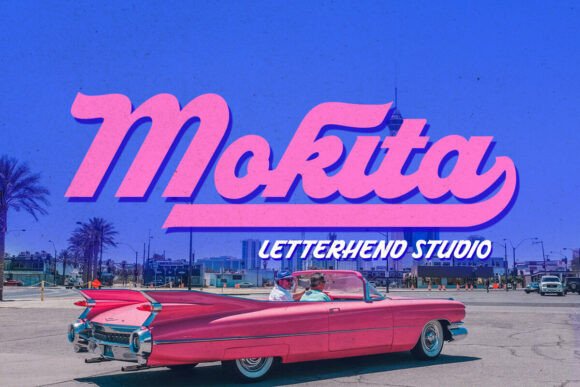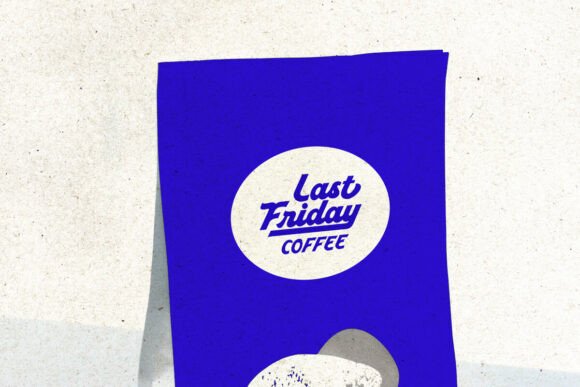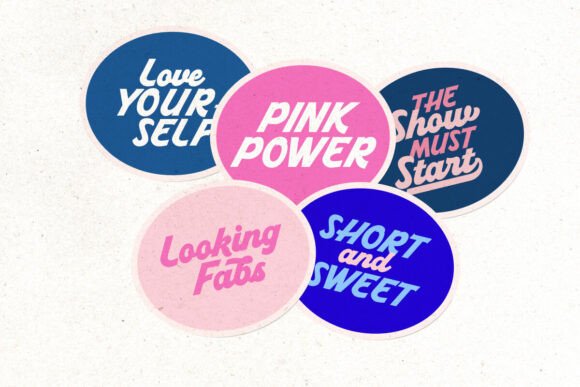
Makota Font: Bold Retro Script for Eye-Catching Logo Design
About the Makota Font
Unleash your creativity with Makota Font, a versatile font perfect for a wide range of applications. Meet Makota— a bold script font with a retro twist, capturing the essence of 1960s design. Featuring an easy-to-use extrude version, it’s perfect for creating eye-catching retro effects. Whether it’s logos, packaging, invitations, or any creative project, The Bayland adds a fresh and modern flair with a nostalgic edge.
Makota’s bold, retro style shines in headlines, short text blocks on posters, and branding applications where a vintage aesthetic is desired. It’s particularly effective for logos, packaging design for products with a retro feel (think vintage clothing or vinyl records), and short, impactful statements. However, its script nature and relatively high x-height make it less suitable for body text or UI elements requiring high readability.
Pairing Makota successfully requires considering its strong personality. A clean sans-serif like Montserrat or a geometric sans-serif like Futura would create a balanced contrast, tempering the script’s expressiveness. For a warmer feel, a serif like Playfair Display could complement its vintage charm. Avoid pairing it with other highly decorative or ornate scripts.
Makota projects a confident, playful energy with a touch of nostalgia. Brands targeting a younger demographic with an appreciation for mid-century design would find it particularly fitting. Its retro flair adds a unique and memorable quality ideal for projects aiming for a vintage-inspired yet contemporary feel.
Makota Font Usage Examples
Makota Font Example